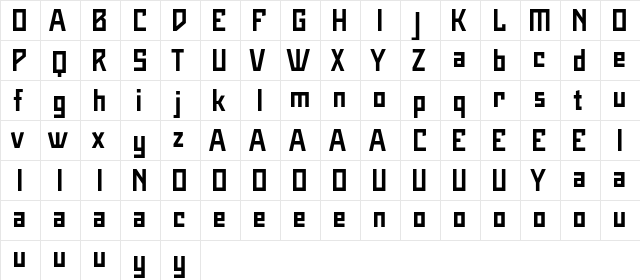
Maiers Neue Nr.8 Pro reduced Halbfett
| Foundry | ingoFont Augsburg, Ingo Zimmermann. Aus: Schriften=Sammlung fuer Techniker. Herausgegeben von Karl O. Maier. |
| Designer | Ingo Zimmermann, Karl O. Maier |
Design Context for Maiers Neue Nr.8 Pro reduced Typeface
Maiers Neue Nr.8 Pro reduced is a composed and adaptable typeface that performs quietly and consistently across a wide range of design contexts.